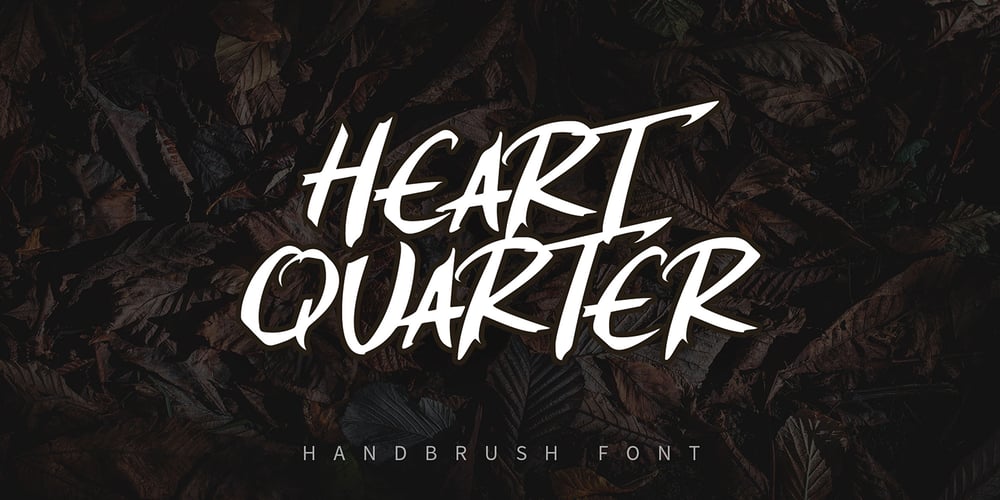
Heart Quarter
Heart Quarter font
Heart Quarter Font Family was designed by Yahdi Kumala and published by Rometheme. Heart Quarter contains 1 styles and family package options. Heart Quarter is a brush font, hand-drawn typeface. It has an elegant, classy look and cool. It’s a great font for fashion, apparel projects, signature, album cover, logo, branding, magazine, social media, & advertisements, but also works great for other projects.